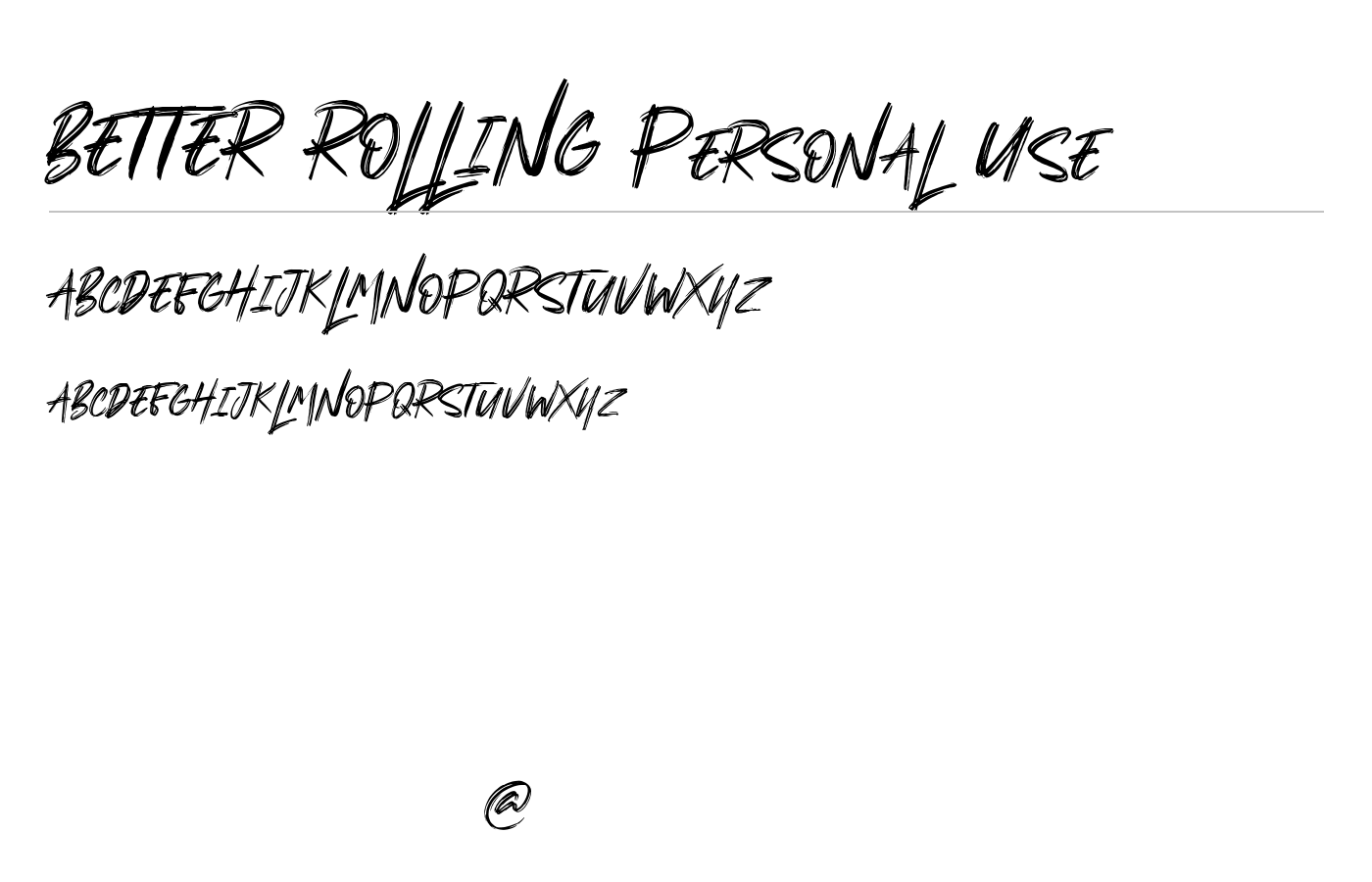
BETTER ROLLING is a lively, hand-drawn script font with a bold, sketchy style that feels energetic and informal. Its tall, narrow letterforms with varied stroke thickness give it a dynamic and edgy look, perfect for creative and casual designs. This font works well for eye-catching headlines, logos, and projects that want to convey a personal, artistic vibe.
BETTER ROLLING Personal Use Font
About BETTER ROLLING Personal Use Font
| Font family | BETTER ROLLING Personal Use Font |